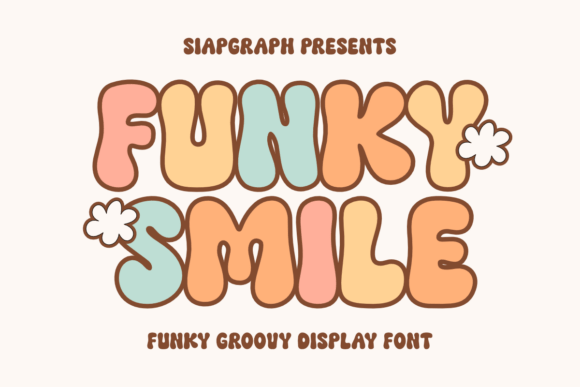
Funky Smile Font: The Ultimate Playful Typeface for Fun and Creative Projects
Are you looking for a font that can add a dash of fun, joy, and retro vibes to your designs? Look no further than the Funky Smile Font! This playful and groovy display font is perfect for a wide range of creative projects, from branding and posters to social media graphics, kids’ designs, and more. In this article, we’ll dive into the world of Funky Smile Font and explore its features, benefits, and uses.
What is Funky Smile Font?
Funky Smile Font is a display font that embodies the spirit of fun and playfulness. Its bubbly, rounded letters and nostalgic 70s-inspired style make it a standout typeface that’s sure to grab attention. The font features thick, outlined shapes that give it a bold and eye-catching appearance, perfect for making every design pop with happiness and energy.
Key Features of Funky Smile Font
- Playful and Groovy Design: Funky Smile Font boasts a playful and groovy design that’s perfect for creating fun and engaging designs.
- Retro 70s-Inspired Style: The font’s nostalgic 70s-inspired style gives it a unique and distinctive look that’s sure to transport you back to the era of disco and funk.
- Thick, Outlined Shapes: The font’s thick, outlined shapes make it bold and eye-catching, perfect for grabbing attention and making a statement.
- Bubbly, Rounded Letters: The font’s bubbly, rounded letters add to its playful and fun aesthetic, making it perfect for designs that require a lighthearted touch.
Benefits of Using Funky Smile Font
So, why should you use Funky Smile Font in your designs? Here are just a few benefits of this amazing typeface:
- Adds Fun and Energy to Designs: Funky Smile Font is the perfect way to add a dash of fun and energy to your designs, making them more engaging and attention-grabbing.
- Perfect for Creative Projects: The font’s playful and groovy design makes it perfect for a wide range of creative projects, from branding and posters to social media graphics and kids’ designs.
- Easy to Read: Despite its bold and playful design, Funky Smile Font is easy to read, making it perfect for use in a variety of contexts.
- Versatile: The font’s versatility makes it perfect for use in a wide range of designs, from digital to print.
Uses of Funky Smile Font
Funky Smile Font is a versatile typeface that can be used in a wide range of designs, including:
- Branding: Use Funky Smile Font to create bold and eye-catching brand identities that reflect your company’s fun and playful personality.
- Posters: The font’s bold and attention-grabbing design makes it perfect for use in posters, flyers, and other marketing materials.
- Social Media Graphics: Funky Smile Font is perfect for use in social media graphics, including Facebook posts, Instagram stories, and Twitter headers.
- Kids’ Designs: The font’s playful and fun aesthetic makes it perfect for use in kids’ designs, including children’s books, educational materials, and more.
- Creative Projects: Funky Smile Font is perfect for use in a wide range of creative projects, from art installations to craft projects.
Tips for Using Funky Smile Font
Here are a few tips for getting the most out of Funky Smile Font:
- Use it Sparingly: While Funky Smile Font is bold and eye-catching, it can be overwhelming if used too much. Use it sparingly to add a dash of fun and energy to your designs.
- Pair it with Other Fonts: Funky Smile Font pairs well with other fonts, including sans-serif fonts and script fonts. Experiment with different pairings to find the one that works best for your design.
- Experiment with Colors: The font’s bold and playful design makes it perfect for use with bright and bold colors. Experiment with different color schemes to find the one that works best for your design.
Funky Smile Font is a playful and groovy display font that’s perfect for adding a dash of fun, joy, and retro vibes to your designs. Its bubbly, rounded letters and nostalgic 70s-inspired style make it a standout typeface that’s sure to grab attention. With its thick, outlined shapes and funky aesthetic, Funky Smile Font is perfect for a wide range of creative projects, from branding and posters to social media graphics, kids’ designs, and more. So why not give Funky Smile Font a try and see how it can add a dash of fun and energy to your designs?